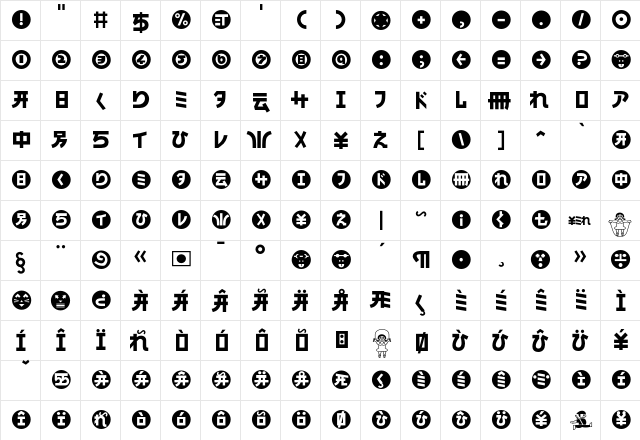
HaMangaIrregularLL Normal
Design Context for HaMangaIrregularLL Typeface
HaMangaIrregularLL is a composed and adaptable typeface that performs quietly and consistently across a wide range of design contexts.